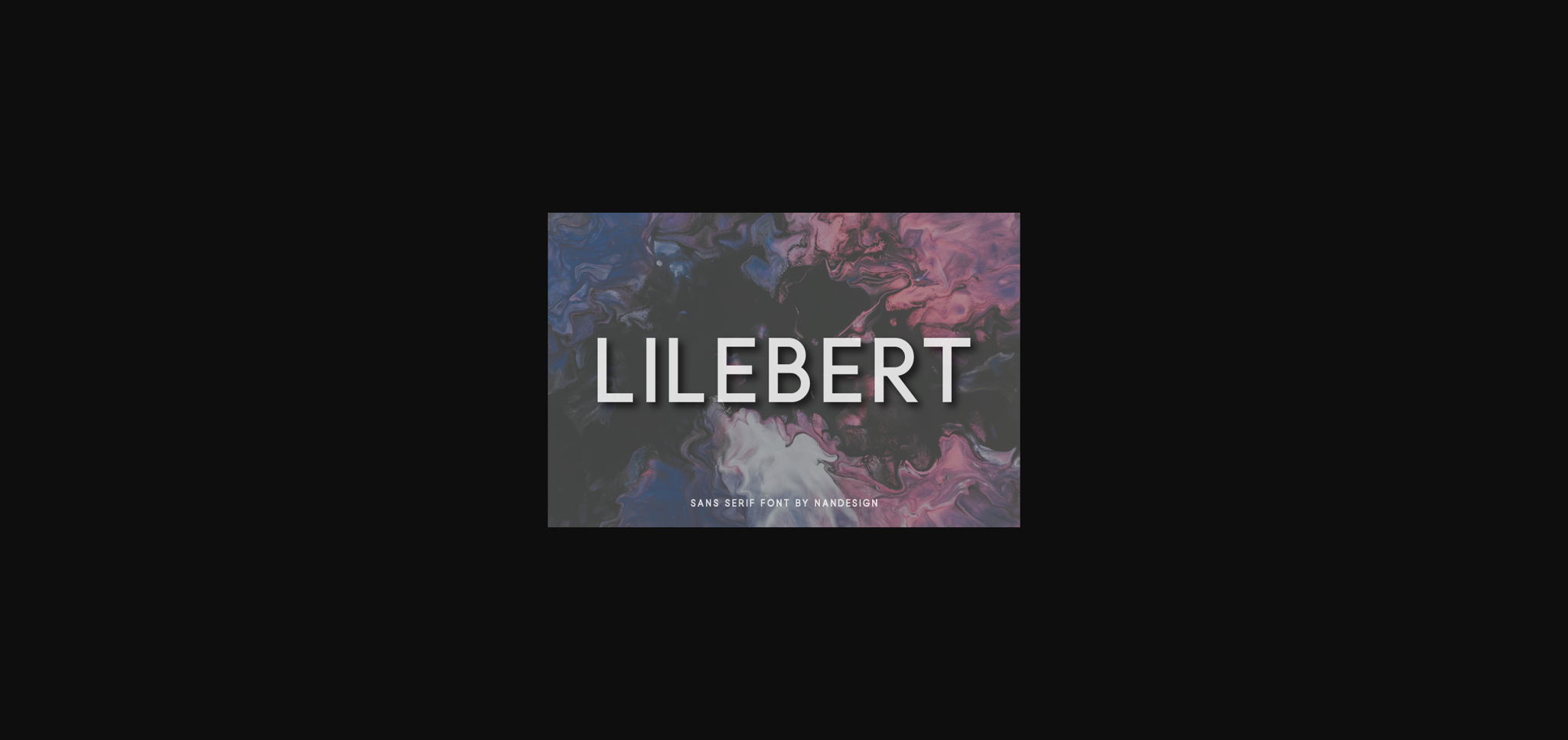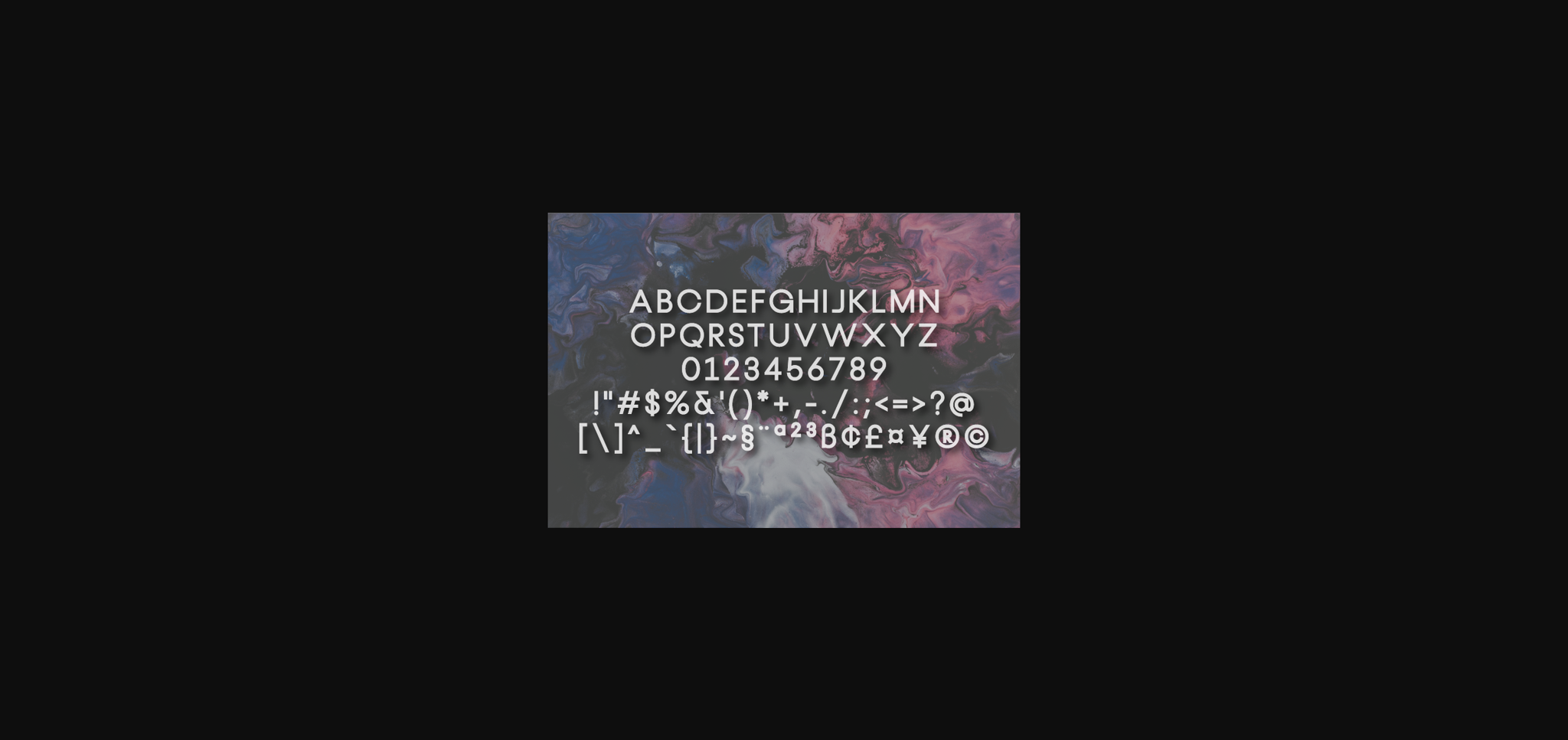
HomeSans Serif FontsLilebert Font Sans Serif Fonts Lilebert Font FacebookXPinterestWhatsApp 1 of 4 ... Lilebert Font Poster 2... Lilebert Font Poster 3... Lilebert Font Poster 4... About Lilebert Font Lilebert is a beautiful, neat lettered and simple sans serif font. Its natural style makes it incredibly fitting to a large pool of designs. The only limit is your imagination! DOWNLOAD NOW People also explored Christmas Wonders Font Holiday Sahara Font Agreeable Font Gemma Font Fantastique Grandma Font Bogaparte Smoke Font Blustani Font 349 0 TagsLilebert Font Previous articleApesho FontNext articleMalrkell Font LEAVE A REPLY Cancel reply Comment: Please enter your comment! Name:* Please enter your name here Email:* You have entered an incorrect email address! Please enter your email address here Website: Save my name, email, and website in this browser for the next time I comment. Personal Use Free Bukhari Script Personal Use Free Read more about this font Luxima Personal Use Free Read more about this font Wintersoul Personal Use Free Read more about this font Styledeep Personal Use Free Read more about this font BLOG Free Fonts Risk: Why Free Fonts Can Be Dangerous for Designers Free Fonts Risk: Why Free Fonts Can Be Dangerous for Designers Using free fonts is a common practice in web and graphic design. However, the... Best Fonts for YouTube Videos: Make Your Thumbnails Stand Out How to Install and Use Fonts on Windows, macOS, and Web Projects Exploring Font Trends